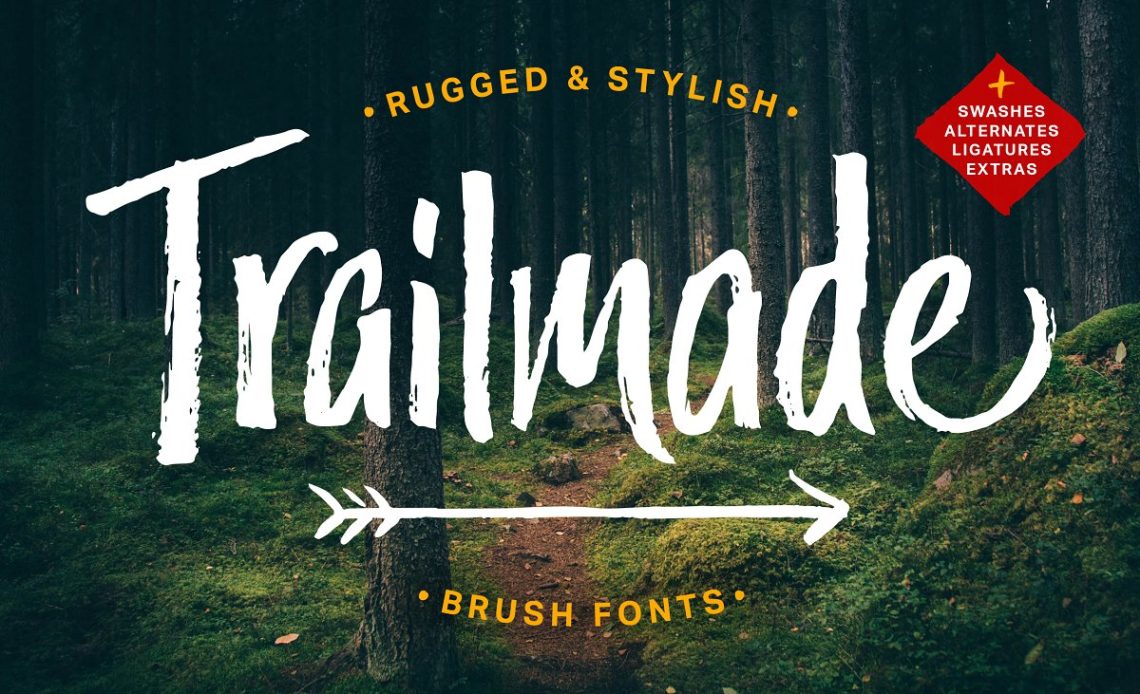
Introducing Trailmade Font Family, the ultimate choice for modern and adventurous designers! Created by the talented Adam Ladd, this rugged and stylish brush font is here to elevate your typography game like never before.
Hand-lettered with a brush pen on paper, Trailmade offers a unique and authentic feel to your designs. With its regular, italic, and extras styles, this font family is perfect for any project that requires a touch of boldness and creativity.
Embark on an exciting journey with Trailmade as it ventures beyond the boundaries of the typical brush script genre. While still echoing its essence, this font breaks free with its upright design in the regular style, exuding confidence and strength. On the other hand, the italic style adds a personal and signature touch, making your designs truly stand out.
But that's not all! Trailmade comes packed with amazing features to take your designs to the next level. With swash characters and automatic double-letter ligatures, your typography will have a dynamic and captivating appearance. Additionally, the second set of lowercase stylistic alternates allows you to effortlessly switch between different styles, giving your creations a more authentic and organic feel.
And let's not forget about the Trailmade Extras font. This remarkable addition includes a variety of lines and dingbats that perfectly complement your typography, adding that extra flair to your designs.
Trailmade Font Family also offers extensive language support, covering Western, Central, and Eastern European languages. No matter where your audience is, your typography will speak their language.